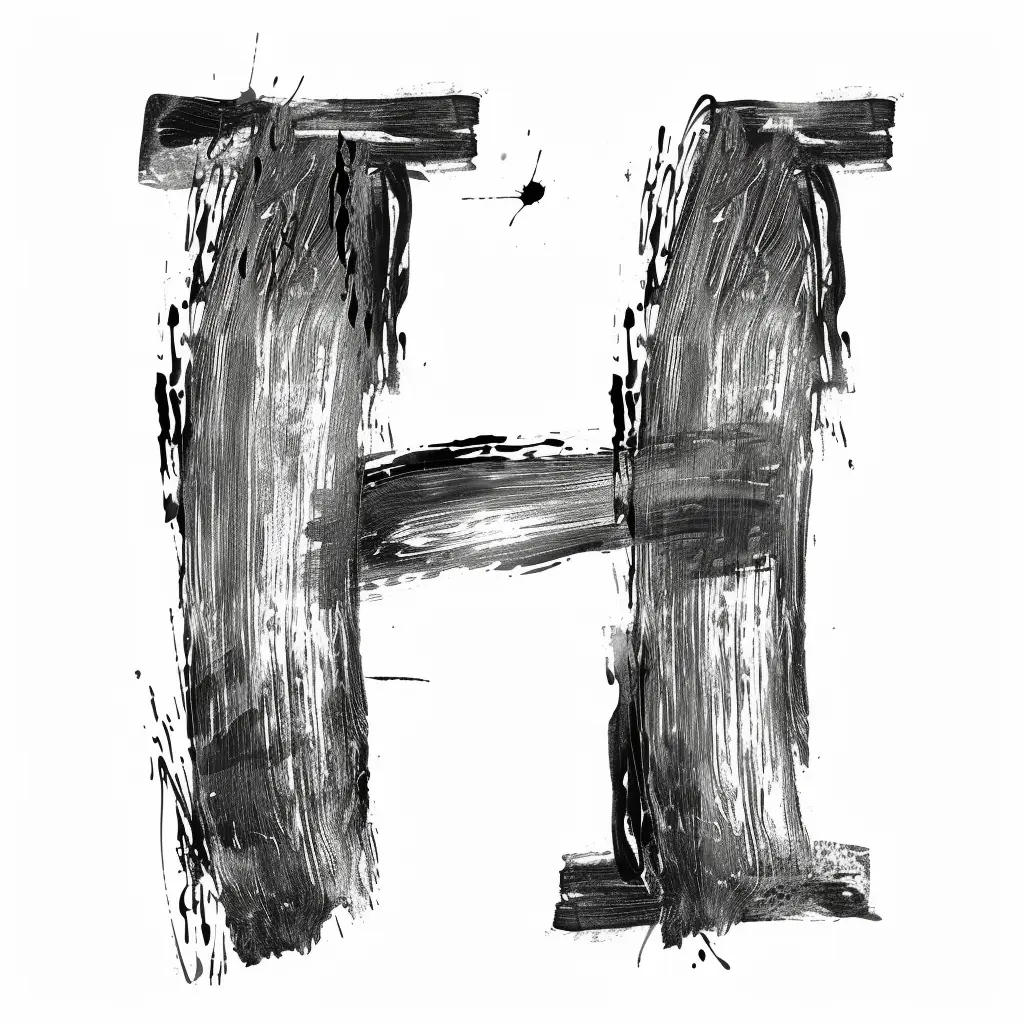
This image features a stylized letter "H" rendered in a bold, expressive brushstroke style. The monochromatic design uses varying shades of black and gray, with textured, uneven strokes and splatters that create a dynamic, artistic effect. The letter’s vertical and horizontal strokes are thick and irregular, emphasizing a raw, hand-painted aesthetic against a plain white background.